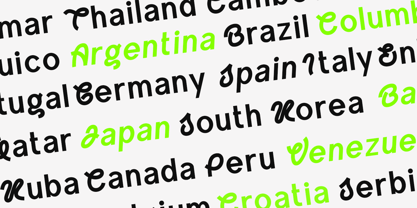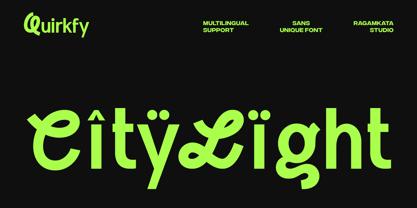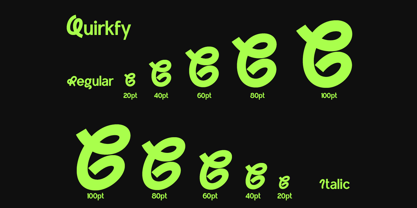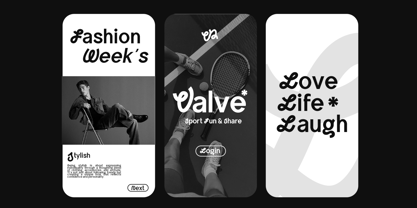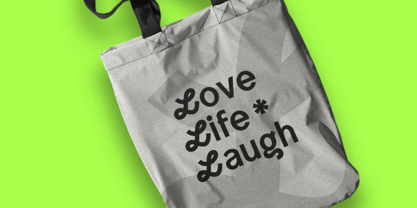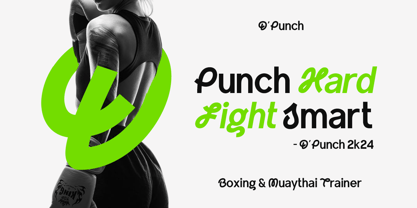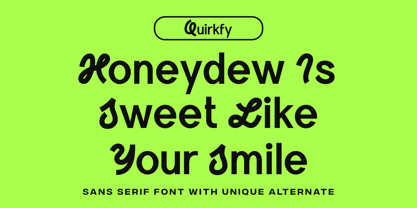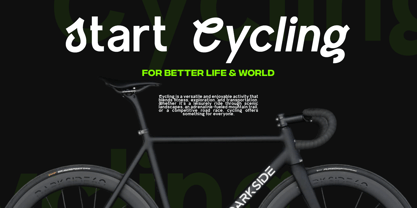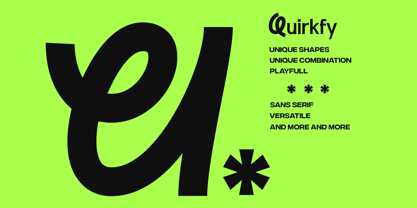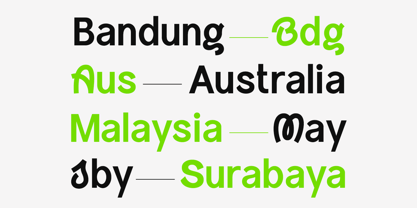
Quirkfy
by RagamKata
The Quirkfy Font Family was designed by Yogiswhara Dio Prakoso Riadi and published by RagamKata. Quirkfy contains 2 styles and family package options.
Quirckfy - Unique Sans Font
Quirkfy is a bold sans-serif font with a unique and playful character, designed to stand out in modern design projects. Featuring distinctive alternate letterforms, this typeface strikes the perfect balance between clean minimalism and creative expression. Ideal for headlines, branding, packaging, and editorial design, Quirkfy adds a touch of personality to any visual composition.
Quirkfy Included :
- Quirkfy Regular
- Quirkfy Italic)
- Unique Alternates
- Multilingual Support
With Quirkfy, you get the best of both worlds: a professional typeface that maintains a sense of fun and creativity. Its bold lines ensure readability, while the alternate glyphs provide endless opportunities for customization, giving your projects a truly distinctive look.